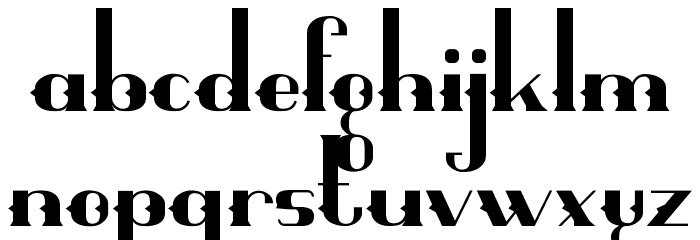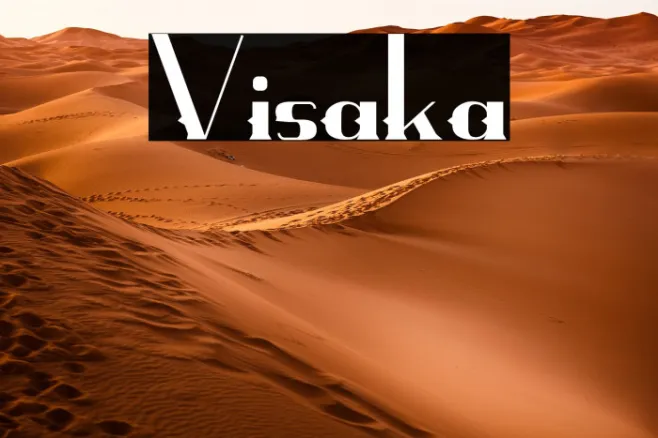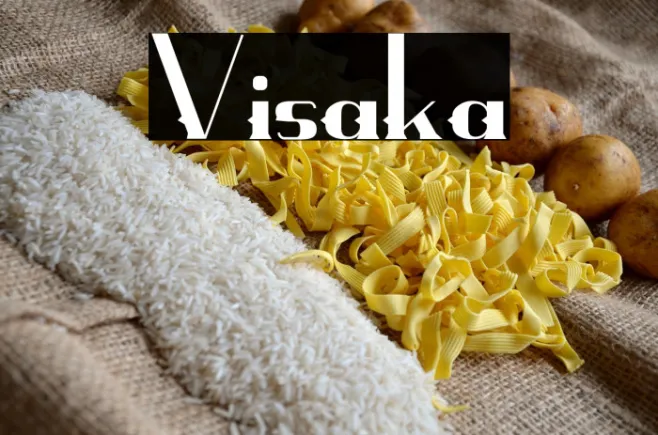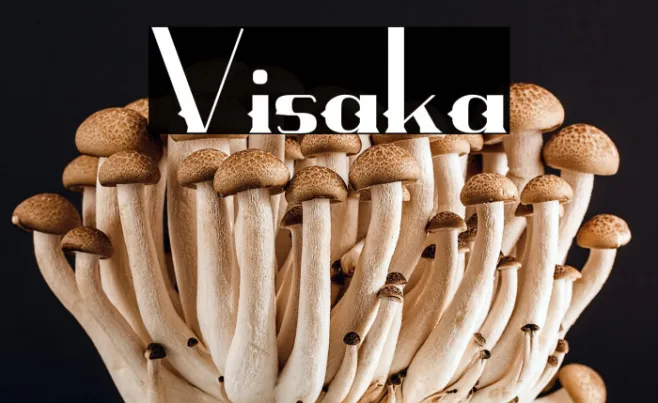
Visaka Font
This font features a striking and bold design with a unique blend of sharp edges and smooth curves. The uppercase letters are tall and imposing, with a modern twist that gives them a futuristic feel. The lowercase letters maintain a consistent style, offering a harmonious balance between the uppercase and lowercase alphabets. The numerals are distinct and easily readable, while the special characters add a touch of flair. This font is perfect for making a bold statement, with its high contrast and decorative elements that draw attention.
A bold, modern font with sharp edges and smooth curves, perfect for striking designs.